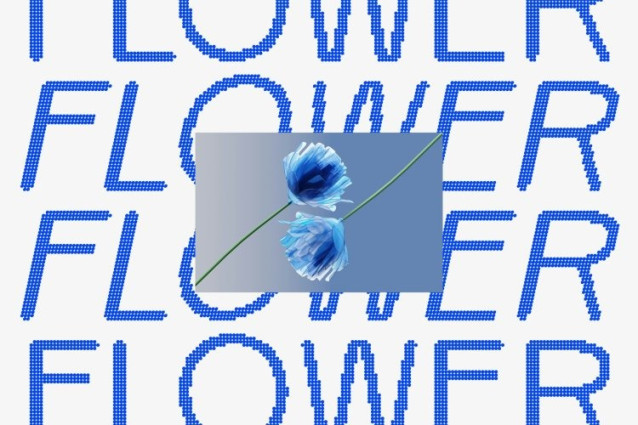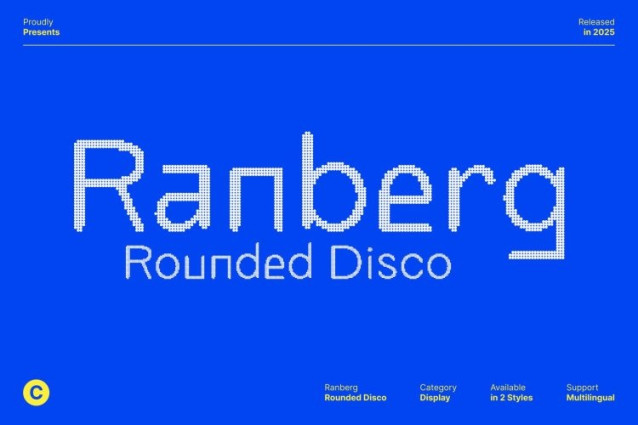
Ranberg Rounded Disco Font
Ranberg Rounded Disco Font This is a brutalist sans serif font unconventional geometry, and modern experimental forms. Its unique design commands attention, making it ideal for editorial layouts, posters, and creative graphic design projects where innovation are key.
Disco Shimmer for Visual Glamour
Enhanced with a disco shimmer effect, this font Disco adds sparkle and dynamic energy to every character. The shimmer transforms the rigid, experimental shapes into a stylish, eye-catching typeface, combining raw modernity with glamorous visual appeal.
Perfect for Modern Branding and Creative Projects
This font is perfect for designers seeking to make a impact while maintaining style. It works exceptionally well for modern branding, beauty packaging, and poster designs, delivering a polished, contemporary aesthetic with standout personality.
A Versatile Typeface with Bold Flair
This font blends experimental brutalist structure with disco-inspired glamour, creating a font that balances sharp modernity with stylish charm. Its playful shimmer make it a versatile choice for projects that require both creativity and visual impact.